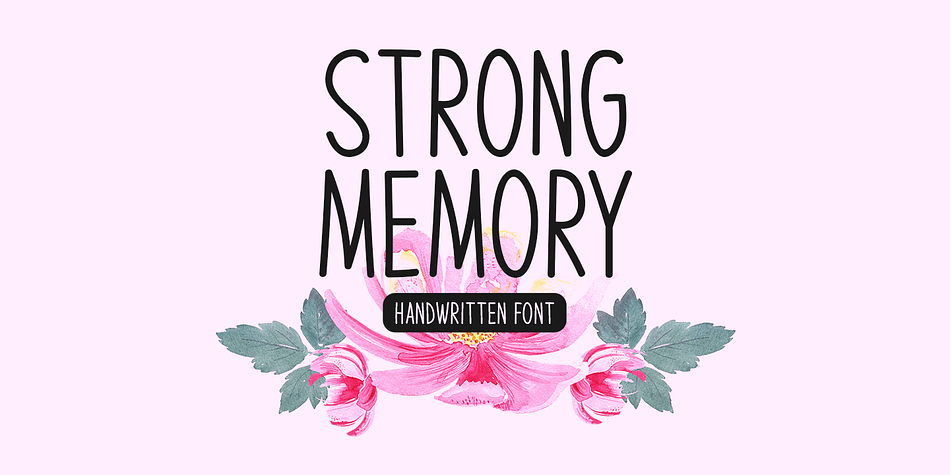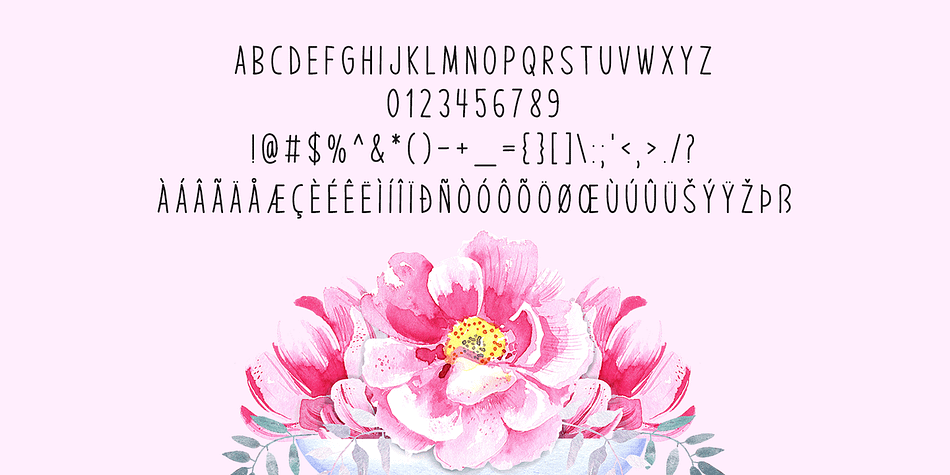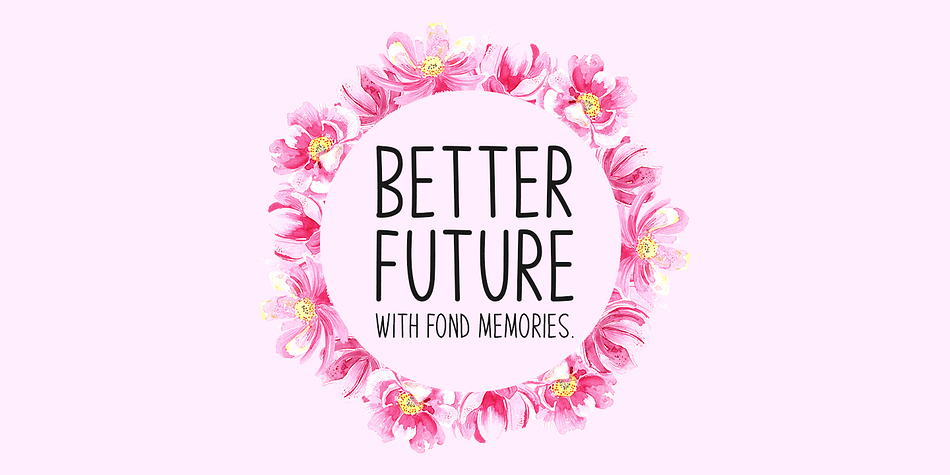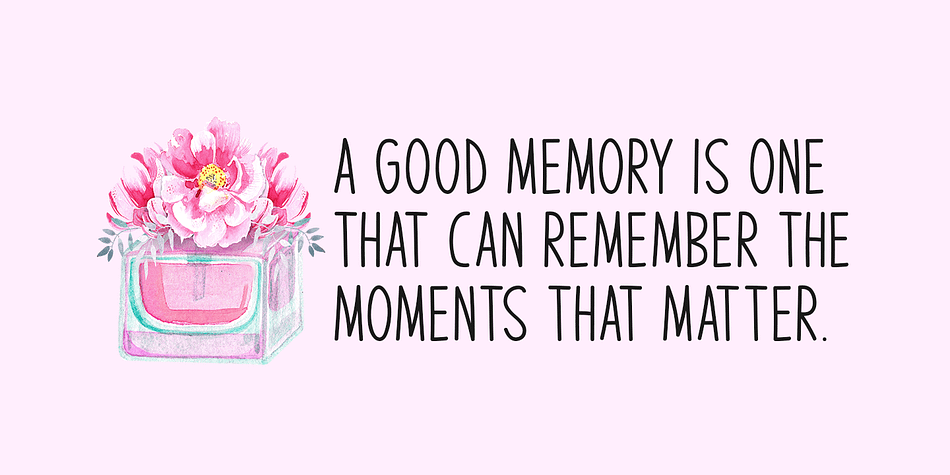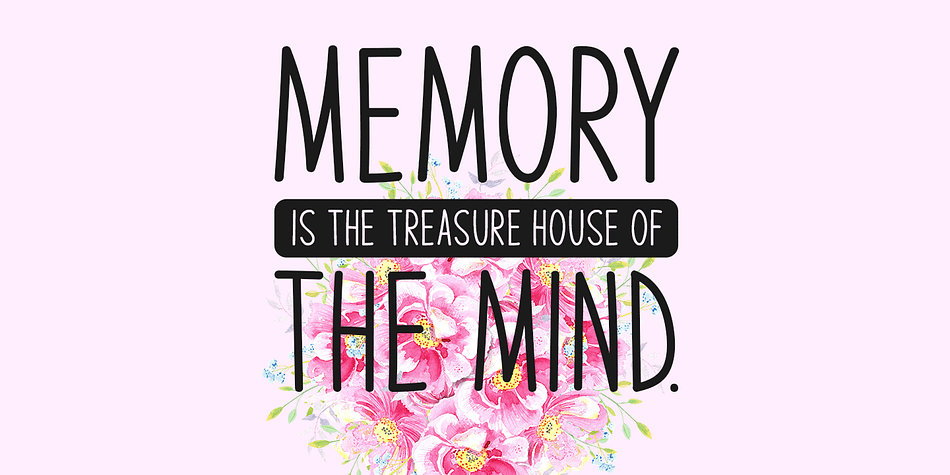
STRONG MEMORY
Designed by Md. Shohail Bhuiyan, Strong Memory is a display sans and hand display font family published by Seemly Fonts.
Strong Memory is a simple handwritten font. It can easily be matched to an incredibly large set of projects, so add it to your creative ideas and notice how it makes them stand out!
Styles Display Sans, Hand Display
Designer Md. Shohail Bhuiyan